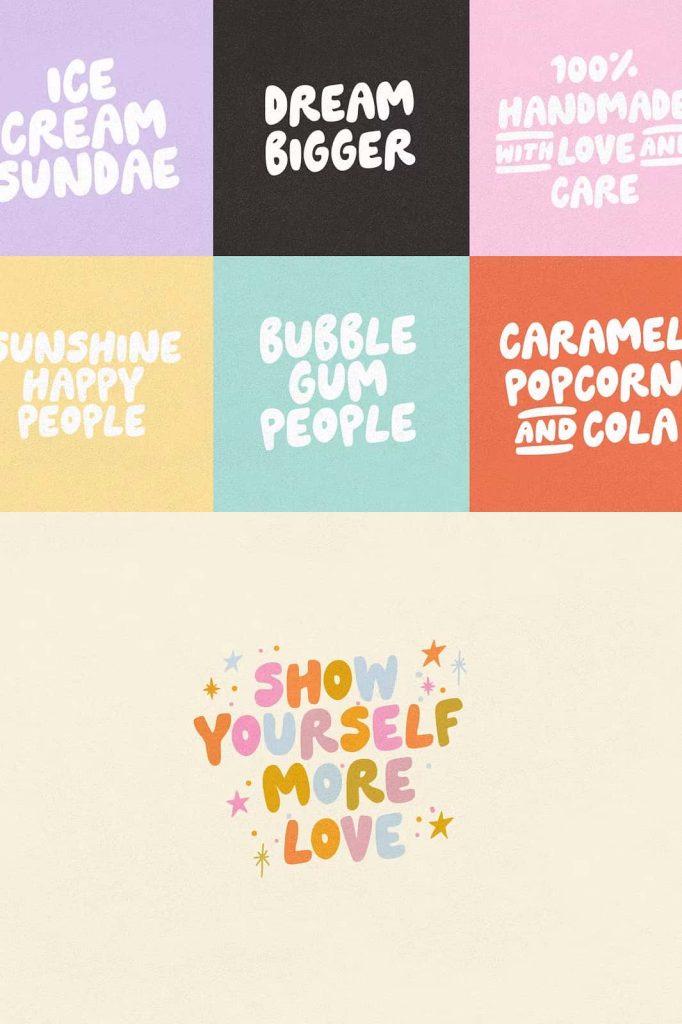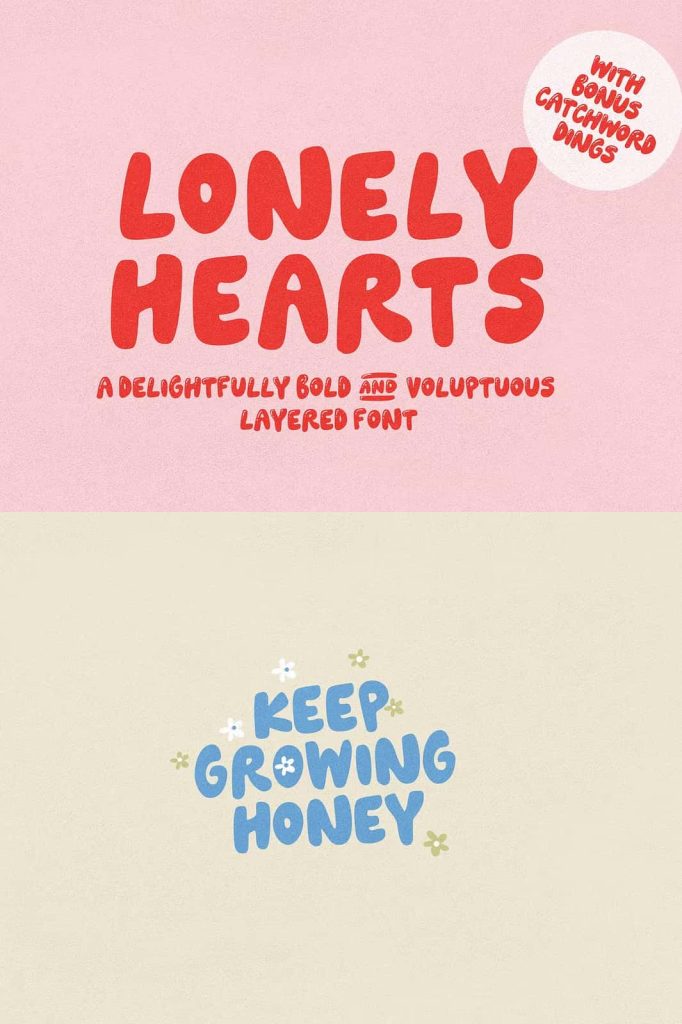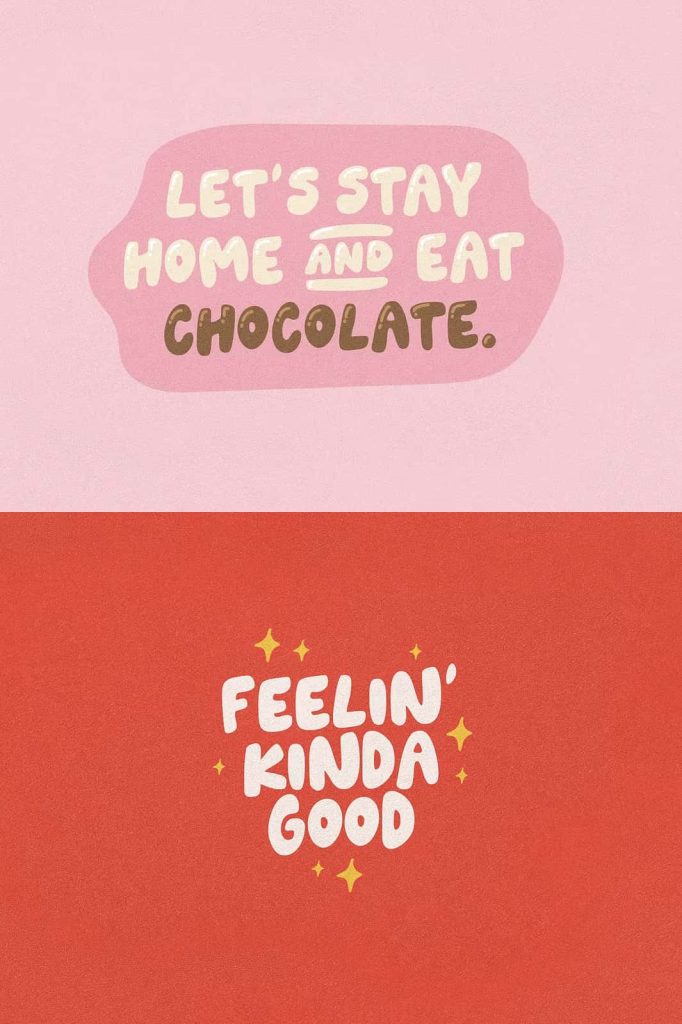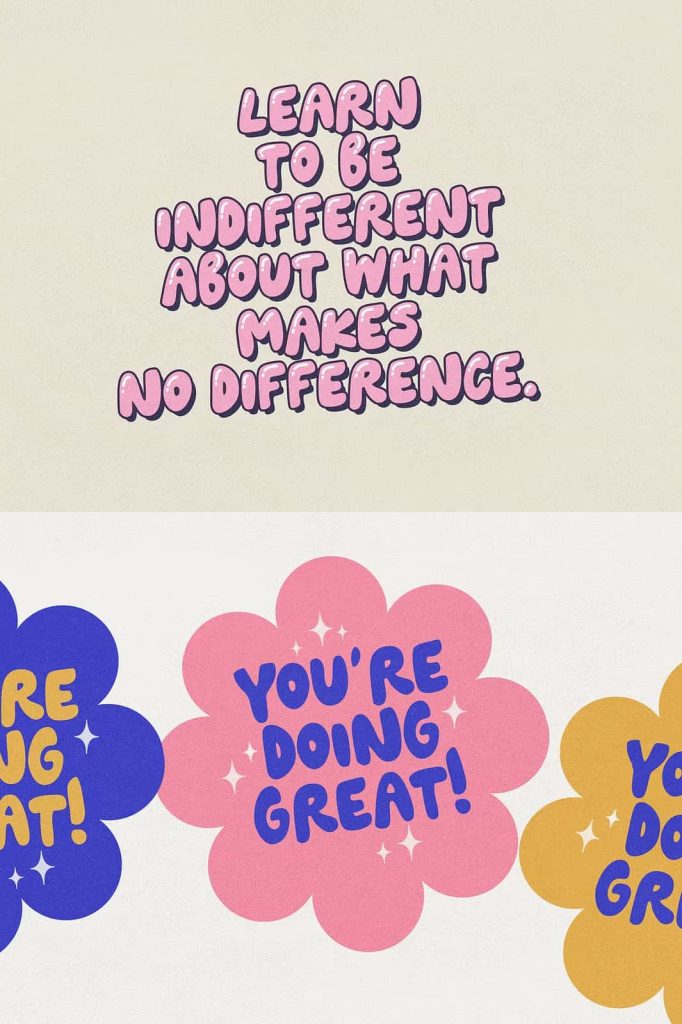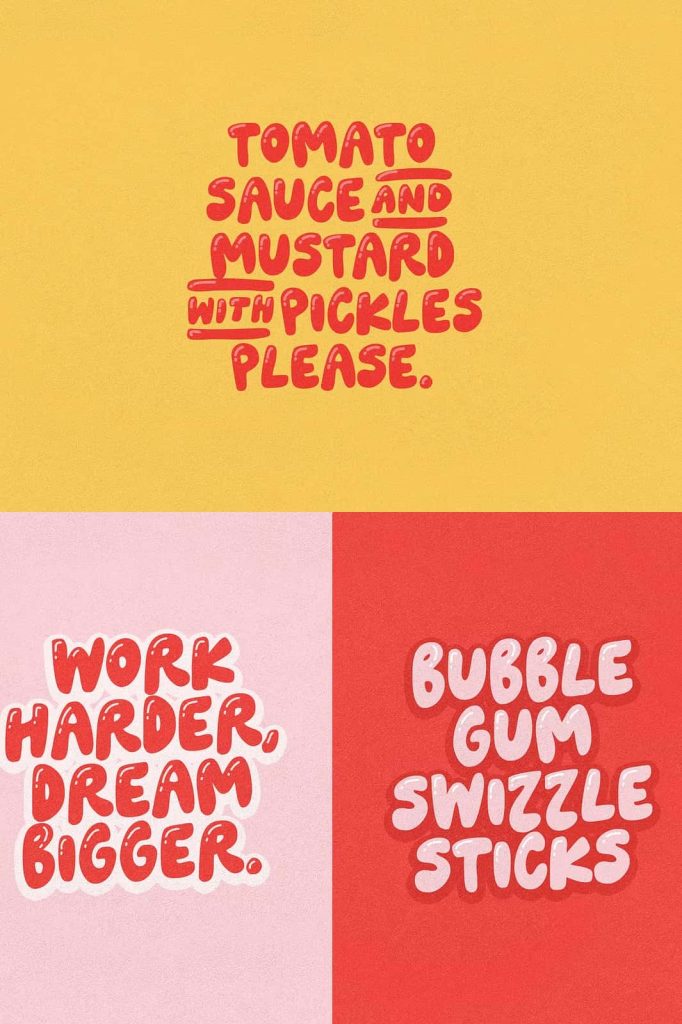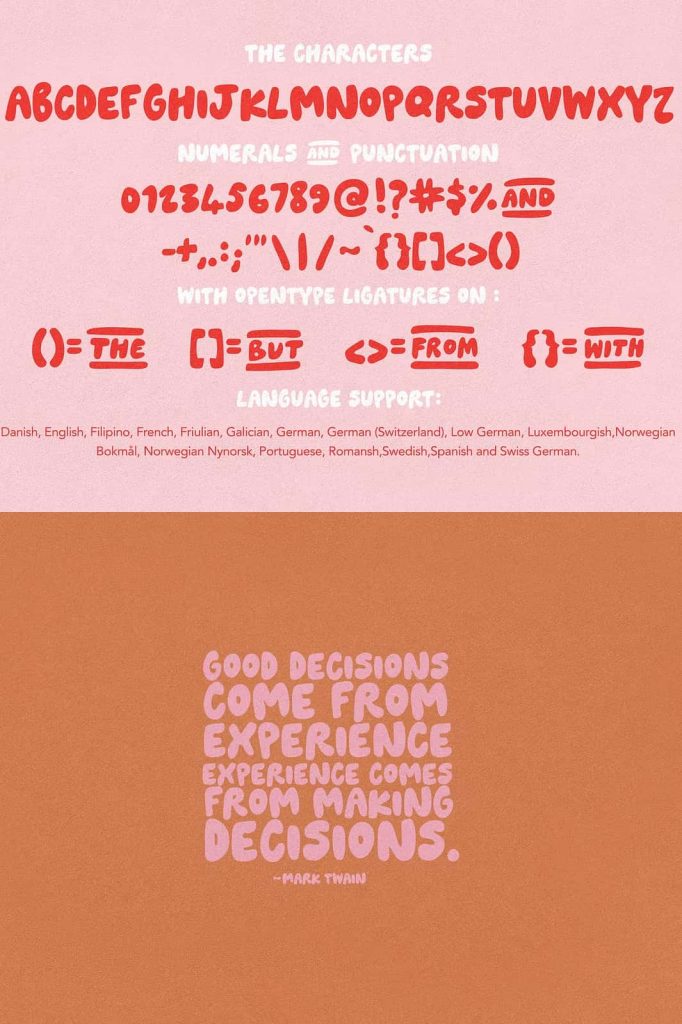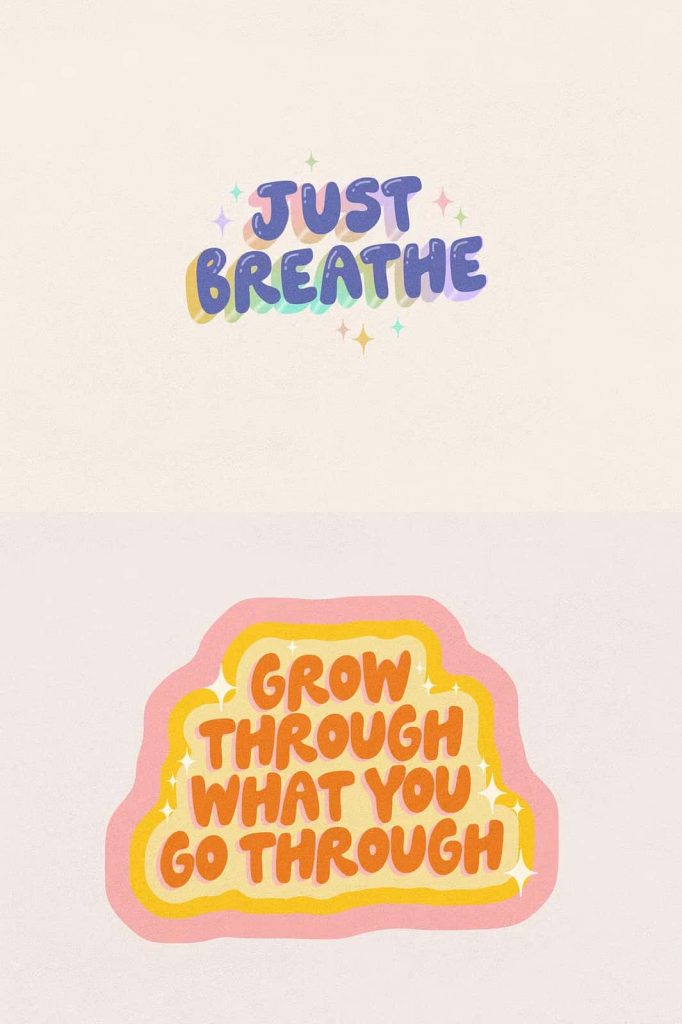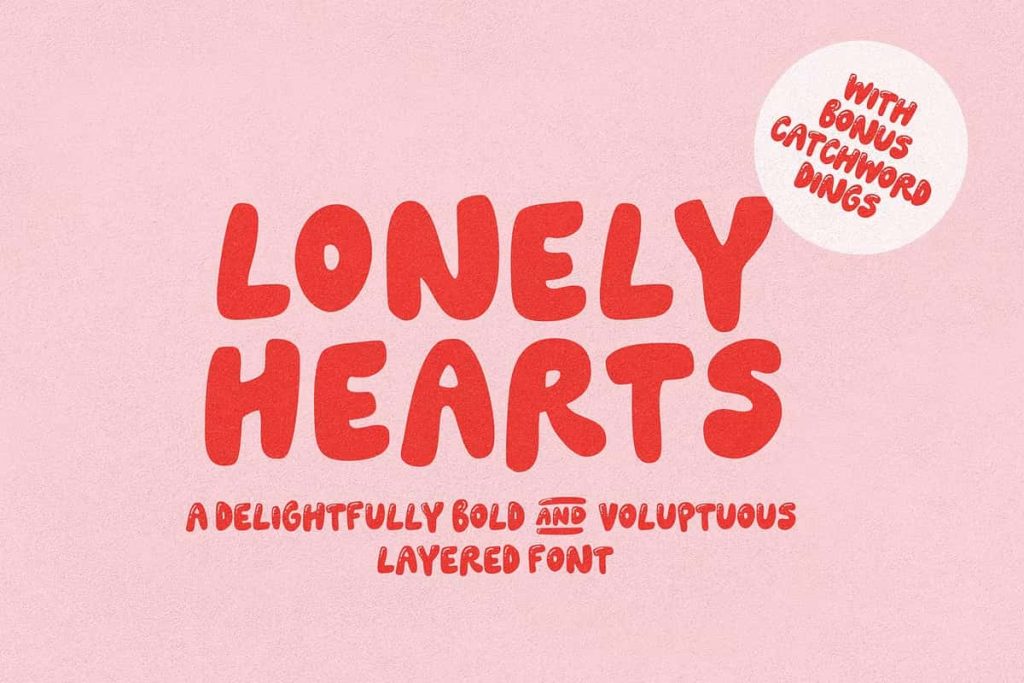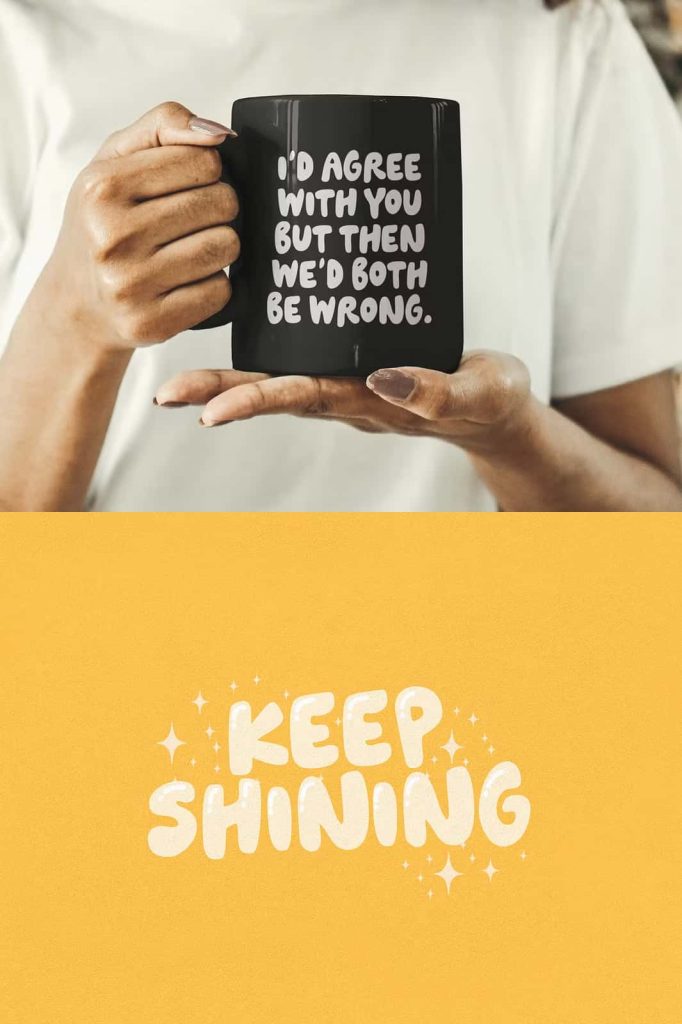
Lonely Hearts Bubble Font
Lonely Hearts is a playful bubble-style display font designed to bring personality, creativity, and cheerful energy to every project. Inspired by retro typography and fun hand-drawn lettering, this charming typeface features bold rounded characters that instantly capture attention while maintaining excellent readability.
More than just a display font, Lonely Hearts also includes two bonus layered shine fonts that allow designers to create eye-catching dimensional typography with minimal effort. Choose between a bold shine layer for dramatic highlights or a thinner shine layer for a more subtle decorative effect. These layered options make it easy to create unique text treatments that stand out across both digital and printed designs.
Whether you are designing colorful branding, playful packaging, greeting cards, invitations, social media graphics, or creative merchandise, Lonely Hearts gives your typography a fun and memorable personality that appeals to audiences of all ages.
A Playful Bubble Font with Retro Personality
Lonely Hearts embraces the joyful character of classic bubble lettering while incorporating clean modern construction for today’s creative projects. Every letter features smooth rounded shapes and balanced proportions that create a friendly, approachable appearance without sacrificing professional quality.
The font captures the nostalgic charm of vintage pop culture, retro advertising, and cheerful hand-lettered signage while remaining versatile enough for contemporary branding and marketing materials. Its expressive personality helps transform ordinary text into engaging visual elements that naturally attract attention.
Whether used for large headlines or decorative titles, Lonely Hearts brings warmth, optimism, and creativity to every design.
Includes Two Bonus Shine Layer Fonts
One of the standout features of Lonely Hearts is the inclusion of two decorative shine overlay fonts that instantly enhance your typography. These additional layers allow designers to create stylish glossy effects without manually drawing highlights.
The thicker shine layer produces bold dimensional lighting that works beautifully in playful branding and posters, while the thinner shine layer offers a softer, more elegant highlight suitable for invitations, greeting cards, and premium packaging.
Simply layer the shine font over the main typeface to achieve a polished multi-dimensional appearance that elevates your designs within seconds.
Create Fun Branding and Logo Designs
Typography plays an important role in shaping brand identity, and Lonely Hearts helps businesses communicate friendliness, creativity, and personality through bold display lettering. Its rounded forms create welcoming visual experiences that feel approachable while remaining memorable.
The font is especially effective for businesses targeting families, children, lifestyle brands, creative studios, food products, entertainment companies, and handmade businesses.
Recommended Branding Applications
- Playful logo design
- Children’s brands
- Candy packaging
- Bakery branding
- Toy packaging
- Creative business identities
- Lifestyle brands
- Food product labels
- Party supplies
Perfect for Packaging and Merchandise
Product packaging benefits greatly from typography that immediately captures attention. Lonely Hearts adds colorful personality to product labels, snack packaging, beverage branding, stationery, gift boxes, apparel, stickers, mugs, and promotional merchandise.
The optional shine layers create premium decorative effects that help products stand out on store shelves while maintaining a playful and approachable appearance.
Ideal for Invitations and Greeting Cards
Lonely Hearts is a wonderful choice for invitations, greeting cards, birthday announcements, baby showers, holiday celebrations, party decorations, and personalized stationery. Its cheerful bubble lettering naturally creates warm and inviting designs that make every occasion feel more memorable.
The decorative shine overlays provide additional flexibility, allowing designers to match different themes ranging from subtle elegance to bright celebratory graphics.
Bonus OpenType Ligature Features
Lonely Hearts includes special OpenType bonus catchwords that simplify decorative typography and improve design consistency. Featured words such as Namely, The, But, From, and With are available through the font’s ligature feature, allowing designers to quickly access beautifully designed word combinations.
These OpenType features help create polished layouts while saving valuable design time. They can be accessed using OpenType-compatible software such as Adobe Photoshop, Adobe Illustrator, Adobe InDesign, as well as Font Book and TextEdit on macOS.
Versatile Across Creative Projects
Although Lonely Hearts shines in playful designs, its versatility allows it to adapt to numerous creative applications. The font works beautifully in both digital and printed media, making it a valuable addition to any designer’s font collection.